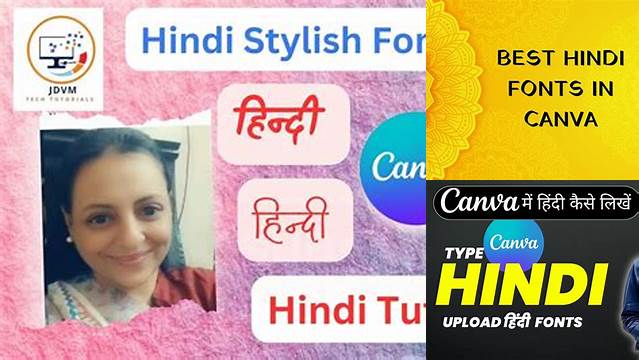
Cool Hindi Fonts: Design Guide For Canva
Introduction to Hindi Fonts in Canva
Hey guys! Are you looking to add a unique touch to your designs with Hindi fonts in Canva? You've come to the right place! Hindi, one of the most widely spoken languages in the world, possesses a beautiful script that can elevate your creative projects. Whether you're designing social media graphics, presentations, or marketing materials, incorporating the right Hindi font can make your content stand out. Canva, a user-friendly graphic design platform, offers a plethora of options to help you achieve just that. This comprehensive guide will walk you through everything you need to know about using cool Hindi fonts in Canva, ensuring your designs are not only visually appealing but also culturally relevant. So, let's dive in and explore the vibrant world of Hindi typography in Canva!
Moreover, understanding the nuances of Hindi typography is crucial for creating impactful designs. Hindi, written in the Devanagari script, has its own set of rules and aesthetics. The legibility of the font is paramount, especially when designing for digital platforms where readability can be affected by screen size and resolution. Therefore, it's important to choose fonts that are clear and easy to read, even at smaller sizes. Additionally, consider the overall tone and message of your design. A formal design might call for a more traditional and elegant font, while a casual or playful design could benefit from a more modern and quirky option. Canva's font library is regularly updated, so there's always something new to discover. Experiment with different fonts to see what works best for your project. Don't be afraid to mix and match fonts, but always ensure that the fonts you choose complement each other and maintain a consistent visual hierarchy. Furthermore, pay attention to the spacing between letters and lines. Adjusting the letter spacing and line height can significantly impact the readability and visual appeal of your text. Canva provides easy-to-use tools for making these adjustments, allowing you to fine-tune your typography to perfection. By mastering these basic principles, you can create stunning designs that effectively communicate your message in Hindi.
Top Cool Hindi Fonts Available in Canva
Canva offers a fantastic selection of Hindi fonts, each bringing its own flavor to your designs. Let's explore some of the top choices that can make your projects shine! When selecting a font, think about the mood and message you want to convey. A traditional font might be perfect for formal invitations or cultural events, while a modern font could be better suited for social media graphics or promotional materials. One standout option is Poppins, a versatile font that works well for both headings and body text. Its clean and modern look makes it a popular choice for a wide range of designs. Another excellent font is Hind, which is known for its readability and clarity. Hind is particularly well-suited for digital platforms, ensuring your text looks crisp and clear on any screen. For a more traditional feel, consider using Baloo Bhai. This font has a playful and friendly vibe, making it ideal for designs that need a touch of warmth and personality. Kalam is another great option, offering a handwritten style that can add a personal touch to your projects. Its elegant strokes and unique character make it a favorite among designers. And let's not forget Siddhartha, a bold and impactful font that's perfect for headlines and titles. Its strong presence commands attention, ensuring your message is heard loud and clear.
Delving deeper into the specifics, Poppins is a geometric sans-serif typeface that has gained immense popularity for its versatility and clean aesthetics. Its balanced proportions and clear letterforms make it an excellent choice for both headlines and body text. Whether you're designing a website, a presentation, or a social media post, Poppins can seamlessly fit into any context. Hind, on the other hand, is a humanist sans-serif font designed specifically for readability on screens. Its open counters and clear strokes ensure that your text remains legible even at small sizes. This makes Hind an ideal choice for mobile applications, websites, and other digital platforms where readability is paramount. Baloo Bhai brings a touch of playfulness to your designs with its rounded letterforms and friendly appearance. This font is perfect for projects that need a touch of warmth and personality, such as children's books, greeting cards, and informal invitations. Kalam, with its handwritten style, adds a personal and artistic touch to your designs. Its elegant strokes and unique character make it a favorite for invitations, posters, and other projects where you want to convey a sense of creativity and individuality. Lastly, Siddhartha stands out with its bold and impactful presence. This font is perfect for headlines and titles, commanding attention and ensuring your message is noticed. Its strong letterforms and confident style make it an excellent choice for posters, banners, and other projects where you want to make a statement. By exploring these top Hindi fonts in Canva, you can find the perfect typeface to elevate your designs and effectively communicate your message.
Furthermore, it's essential to consider the pairing of Hindi fonts with other elements in your design. The font you choose should complement the overall style and mood of your project. For instance, if you're designing a poster for a classical music concert, a traditional and elegant Hindi font might be the most appropriate choice. On the other hand, if you're creating a social media graphic for a trendy new product, a modern and stylish Hindi font could be a better fit. Experiment with different combinations of fonts, colors, and images to see what works best. Canva's intuitive interface makes it easy to try out different options and refine your design until it's just right. Don't be afraid to step outside your comfort zone and explore new possibilities. The key to great design is to be creative and innovative. By mastering the art of Hindi typography in Canva, you can create visually stunning and culturally relevant designs that resonate with your audience. Remember, the right font can make all the difference in conveying your message effectively and making a lasting impression.
How to Use Hindi Fonts Effectively in Canva
Using Hindi fonts effectively in Canva involves more than just selecting a cool typeface. It's about understanding typography principles and applying them thoughtfully to your designs. One of the first things to consider is legibility. A beautiful font is useless if your audience can't read it! Make sure the font size is appropriate for the context, and the spacing between letters and lines is well-adjusted. Another key aspect is contrast. Ensure your text stands out against the background. This can be achieved by using contrasting colors or adding a subtle shadow or outline to the text. Think about the overall tone and style of your design. Is it formal or informal? Modern or traditional? The font you choose should align with the overall aesthetic. If you're designing a wedding invitation, a classic and elegant Hindi font would be a great choice. For a social media ad, a bolder and more contemporary font might be more effective. Don't be afraid to experiment with different fonts and styles. Canva offers a wide range of options, so take the time to explore and find what works best for your project. Try combining different fonts to create visual interest, but make sure they complement each other. A good rule of thumb is to use no more than two or three different fonts in a single design. This helps maintain a clean and cohesive look.
Expanding on the principles of effective Hindi typography in Canva, let's delve deeper into the practical aspects. First and foremost, always prioritize readability. When choosing a Hindi font, consider the complexity of the script and how it will appear at different sizes. Some fonts might look stunning in large headlines but become illegible in smaller body text. To ensure readability, pay close attention to the spacing between letters (kerning) and lines (leading). Canva provides tools to adjust these settings, allowing you to fine-tune the appearance of your text. Experiment with different kerning and leading values until your text looks balanced and easy to read. Contrast is another crucial element in effective typography. The text should stand out clearly against the background, making it effortless for the viewer to read. Use contrasting colors to create visual separation between the text and the background. For example, dark text on a light background or vice versa. If you're using a busy or patterned background, consider adding a semi-transparent overlay or a text box with a solid background to improve readability. The tone and style of your design should guide your font selection. If you're creating a formal invitation or a professional document, opt for a classic and elegant Hindi font. These fonts often feature clean lines and traditional letterforms, conveying a sense of sophistication and refinement. For more casual or creative projects, you can experiment with bolder and more contemporary fonts. These fonts might have unique letterforms, playful curves, or a handwritten style, adding personality and visual interest to your design.
Furthermore, the art of combining fonts can significantly enhance the visual appeal of your design. However, it's essential to approach font pairing with care and consideration. The goal is to create a harmonious balance between different typefaces, rather than a jarring clash. A general guideline is to choose fonts that complement each other in terms of style and weight. For instance, you might pair a bold Hindi font for headlines with a simpler and more legible font for body text. Another approach is to use fonts from the same typeface family. These fonts are designed to work together seamlessly, providing a cohesive and professional look. Canva's font library often groups fonts by family, making it easy to find compatible typefaces. When experimenting with different fonts, try to limit your choices to two or three typefaces per design. Using too many fonts can create a cluttered and confusing look, detracting from your message. By following these guidelines, you can effectively use Hindi fonts in Canva to create visually stunning and culturally relevant designs. Remember, the key is to prioritize readability, contrast, and consistency, ensuring your message is conveyed clearly and effectively.
Tips for Creating Stunning Designs with Hindi Fonts in Canva
Creating stunning designs with Hindi fonts in Canva requires a blend of creativity and technical know-how. Here are some tips to help you elevate your designs: First off, start with a clear concept. Before you even open Canva, have a solid idea of what you want to create. What's the message? Who's the audience? What's the overall tone? This will guide your font selection and design choices. Next, research your fonts. Don't just pick the first Hindi font you see. Explore different options and see how they look with your text. Canva allows you to preview fonts, so take advantage of this feature. Pay attention to the details. Small adjustments can make a big difference. Adjust the letter spacing, line height, and font size to achieve the perfect look. Use color strategically. Color can enhance the impact of your fonts. Choose colors that complement your fonts and create visual interest. Consider using a color palette to maintain consistency throughout your design. Use whitespace effectively. Don't cram too much text into your design. Give your text room to breathe by using whitespace. This will make your design look cleaner and more professional. Get inspired by other designs. Look at examples of well-designed Hindi typography. Pay attention to how they use fonts, colors, and layout. Use these examples as a starting point for your own creations. Finally, get feedback. Show your designs to others and ask for their opinions. Fresh eyes can often spot areas for improvement. By following these tips, you can create stunning designs with Hindi fonts in Canva that are sure to impress.
Elaborating on these tips, starting with a clear concept is the cornerstone of any successful design project. Before diving into Canva, take some time to define your objectives and target audience. What message do you want to convey? Who are you trying to reach? What emotions or ideas do you want to evoke? Having a clear understanding of your goals will help you make informed decisions about font selection, color palettes, and overall layout. For instance, if you're designing a poster for a cultural event, you might opt for traditional Hindi fonts, rich colors, and intricate patterns. On the other hand, if you're creating a social media graphic for a modern product, you might choose a contemporary Hindi font, bold colors, and minimalist design. Researching your fonts is equally crucial. Canva's font library offers a vast array of options, each with its unique characteristics and aesthetic appeal. Take the time to explore different Hindi fonts and see how they look with your text. Consider factors such as readability, style, and overall impact. Some fonts might be ideal for headlines, while others are better suited for body text. Experiment with different combinations to find the perfect fit for your project. Paying attention to the details is what separates good designs from great ones. Small adjustments to letter spacing, line height, and font size can significantly enhance the visual appeal of your text. Canva provides easy-to-use tools for making these adjustments, allowing you to fine-tune your typography to perfection. Pay close attention to how the letters interact with each other and ensure that the text is balanced and harmonious. Using color strategically can elevate your designs and create visual interest. Choose colors that complement your fonts and the overall tone of your project. Consider using a color palette to maintain consistency throughout your design. Canva offers a variety of color tools and resources to help you create stunning color schemes.
Whitespace, often referred to as negative space, is an essential element in design. It's the empty space around your text and other design elements, and it plays a crucial role in creating a clean and professional look. Don't cram too much text into your design. Give your text room to breathe by using whitespace effectively. This will make your design more visually appealing and easier to read. Getting inspired by other designs is a great way to spark your creativity and learn new techniques. Look at examples of well-designed Hindi typography and pay attention to how they use fonts, colors, and layout. Analyze what works and what doesn't, and use these examples as a starting point for your own creations. There are numerous online resources and design galleries where you can find inspiration. Finally, getting feedback is an invaluable step in the design process. Show your designs to others and ask for their honest opinions. Fresh eyes can often spot areas for improvement that you might have overlooked. Be open to constructive criticism and use it to refine your designs. By incorporating these tips into your design process, you can create stunning designs with Hindi fonts in Canva that are both visually appealing and effective in conveying your message.
Conclusion: Unleash Your Creativity with Hindi Fonts in Canva
In conclusion, using cool Hindi fonts in Canva opens up a world of creative possibilities. By understanding the principles of typography and exploring the diverse range of fonts available, you can create designs that are not only visually appealing but also culturally significant. Remember to prioritize readability, contrast, and consistency in your designs. Experiment with different fonts and styles to find what works best for your project. And don't be afraid to get inspired by other designs and seek feedback from others. With Canva's user-friendly interface and extensive font library, the possibilities are endless. So go ahead, guys, unleash your creativity and make your designs shine with beautiful Hindi fonts! Embrace the richness and diversity of the Hindi language and script, and let your imagination soar. Whether you're designing for social media, print, or any other medium, the right Hindi font can make all the difference. Happy designing!